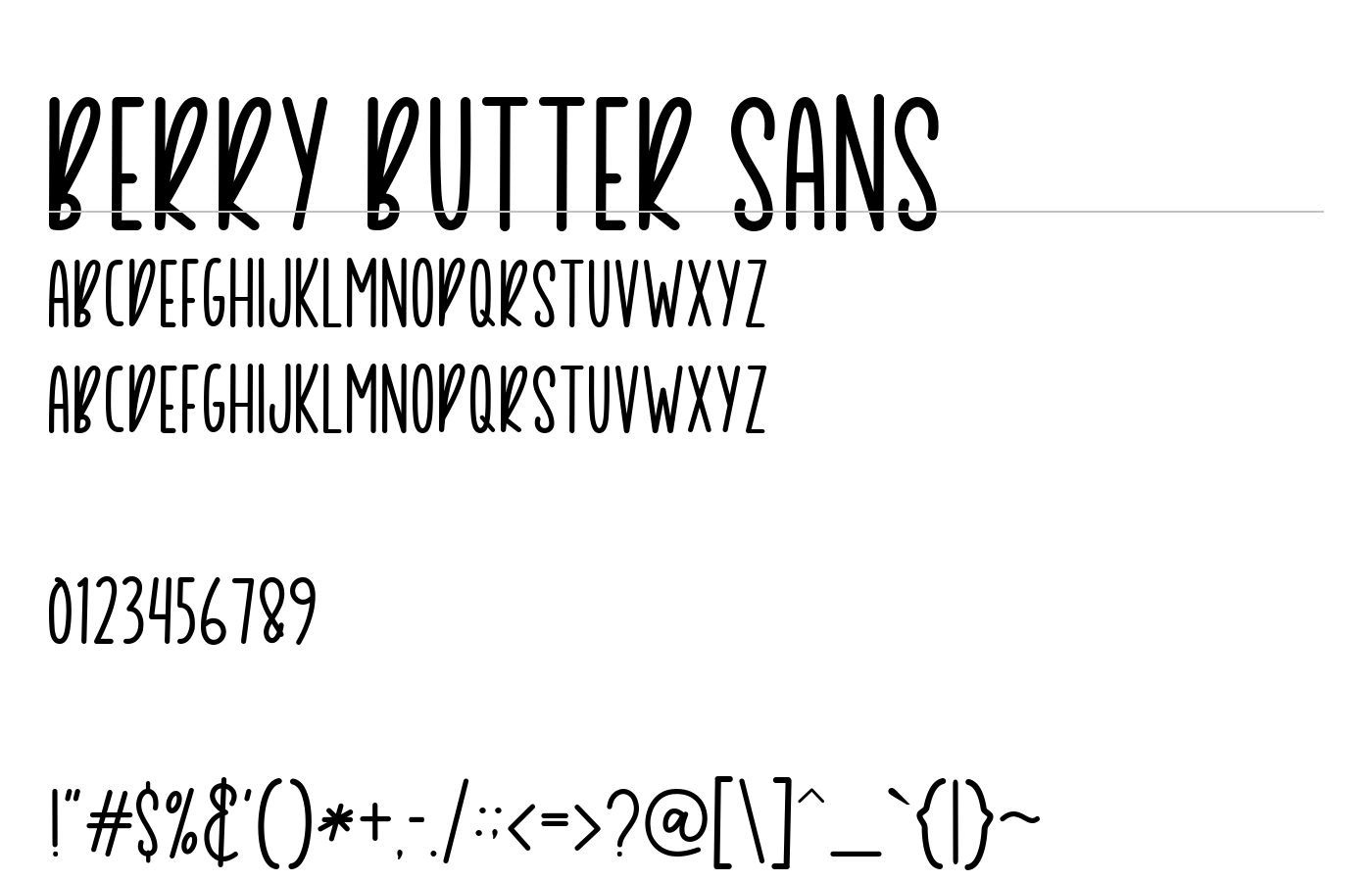
Berry Butter Sans is a playful and quirky sans serif font featuring tall, narrow letterforms with rounded edges and a hand-drawn feel. Its irregular strokes and whimsical character shapes give it a friendly, informal personality perfect for creative projects, children's designs, or casual branding. This font works well in headlines, logos, and packaging where a fun and approachable style is desired.
Berry Butter Sans Font
About Berry Butter Sans Font
| Font family | Berry Butter Sans Font |
| Designer | AM Designs |